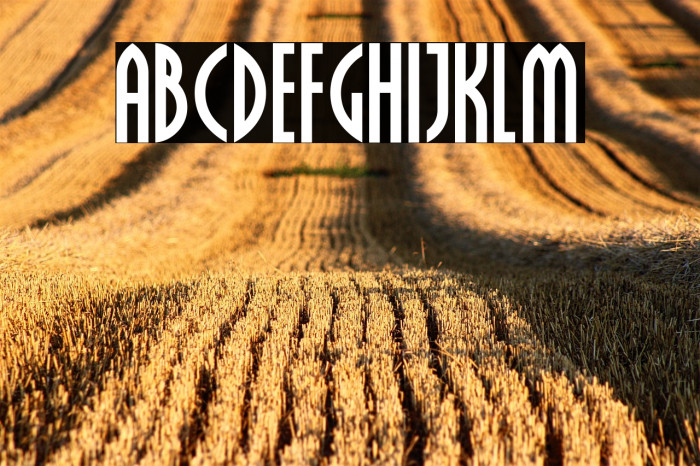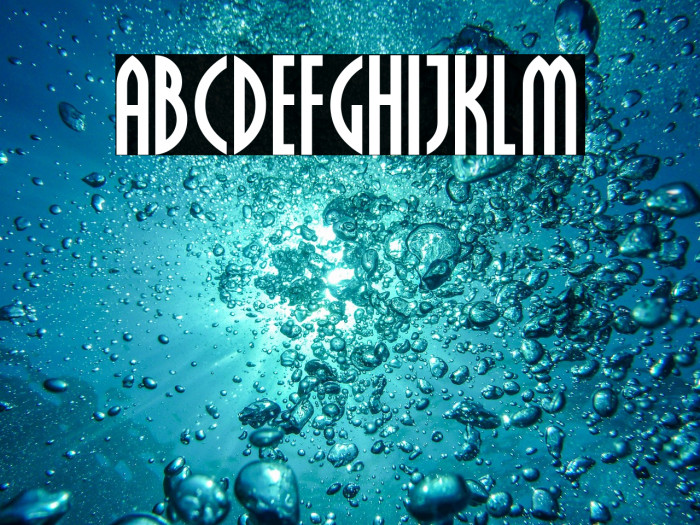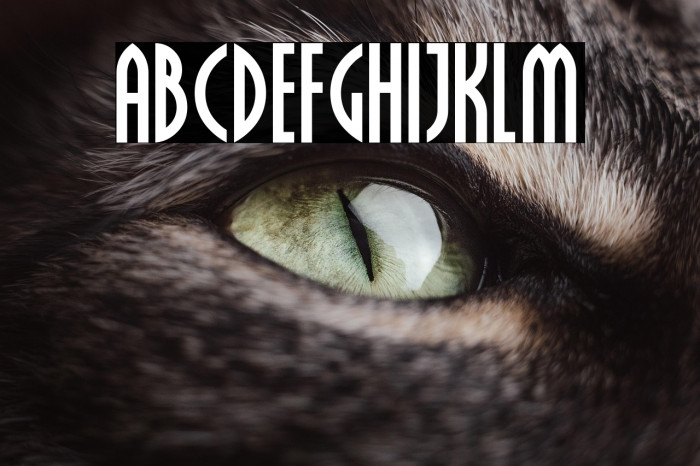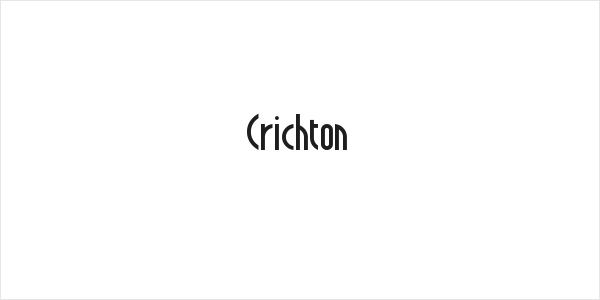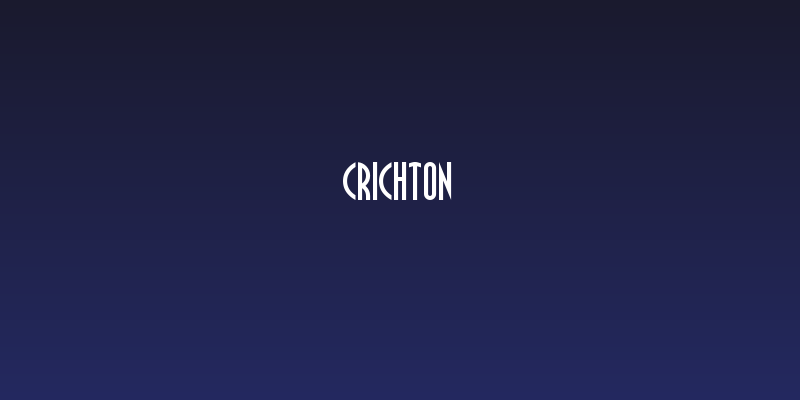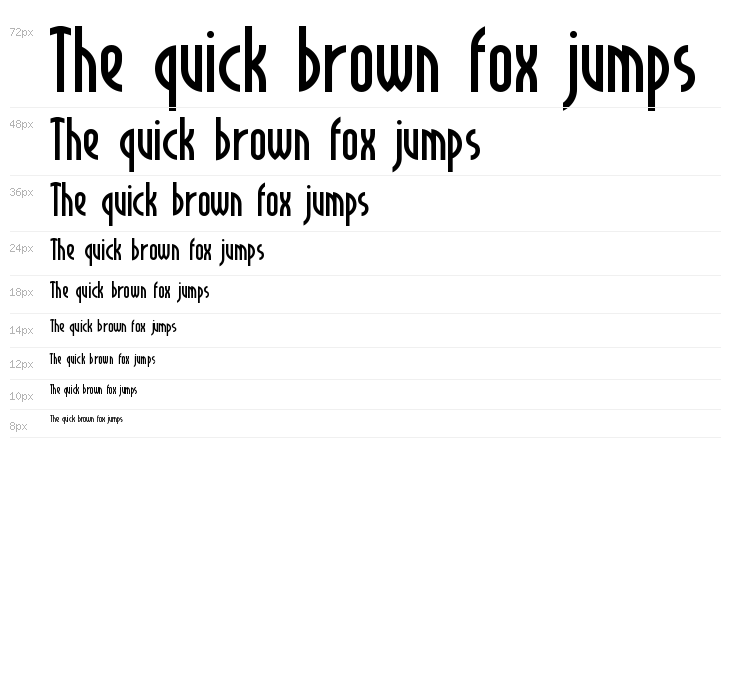
Crichton Font
Crichton Description
This font features a unique and modern design with a geometric flair. The characters are tall and narrow, with a distinct angularity that gives them a futuristic appearance. The uppercase letters are particularly striking, with sharp edges and a consistent vertical alignment. The lowercase letters maintain the same geometric style, offering a cohesive look across the typeface. Numbers and special characters are designed to match the overall aesthetic, ensuring versatility in various design applications. The font's clean lines and bold presence make it suitable for attention-grabbing headlines and impactful visual statements.
| Proposed Projects | Ideal for sci-fi themed projects, modern branding, posters, and digital interfaces. |